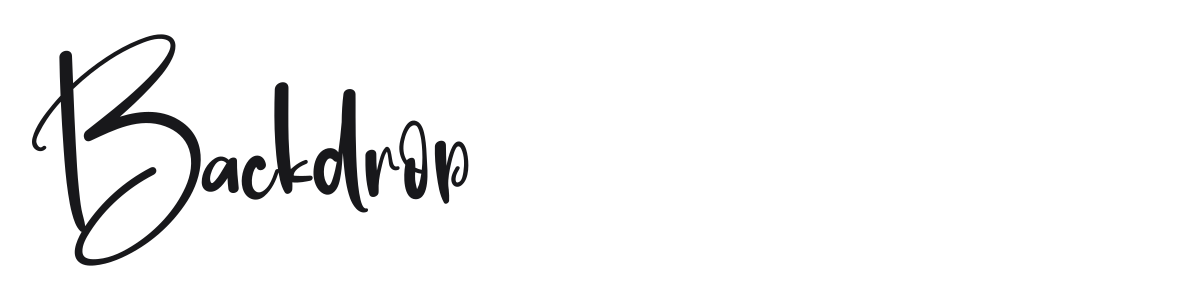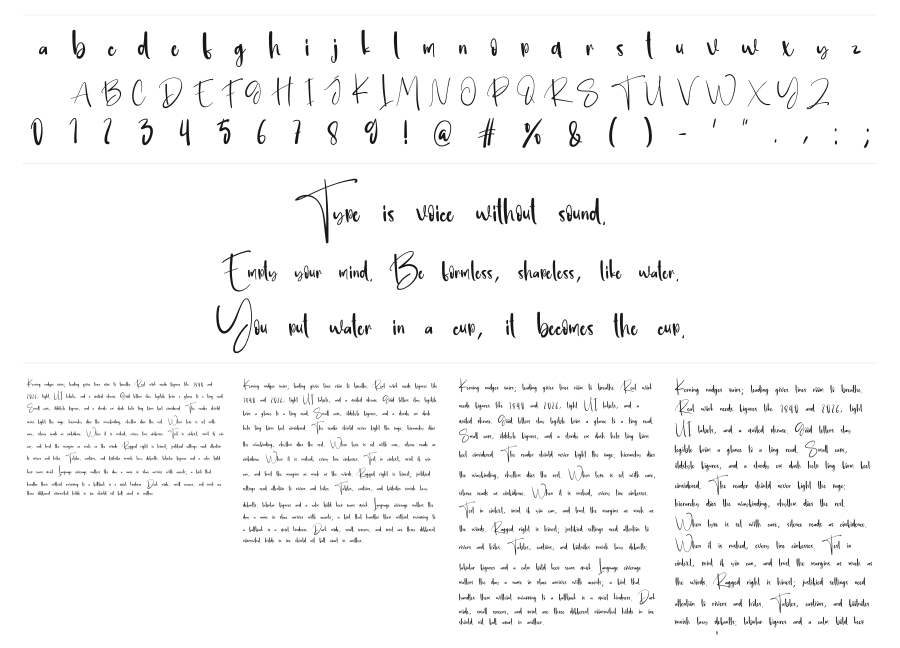
Backdrop
Backdrop is a casual brush script with a relaxed, ink-on-paper feel and naturally flowing connected strokes. The slightly irregular baseline and smooth looping curves give it the spontaneous energy of real handwriting without feeling rough or unpolished. It sits comfortably in wedding stationery, lifestyle branding, and social media graphics.